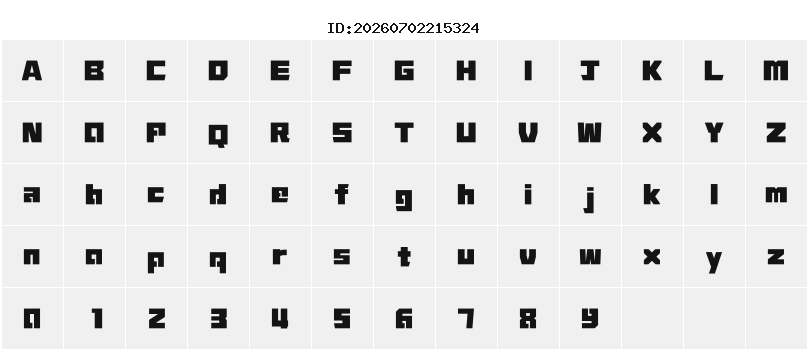
089-上首金刚体 Preview
• Font Name: 089-上首金刚体
• Font ID: 089-SSJinGangTi:Version 6.00
• Full Font Name: 089-上首金刚体
• Version: Version 6.00 January 11, 2022
• PostScript Name: 089-SSJinGangTi
• Character Count: 7569
• Manufacturer: 上首造字
About 089-上首金刚体.ttf
089-上首金刚体.ttf is a modern, elegant sans-serif font designed for ultimate readability and visual harmony. Perfect for branding, headlines, web design, and print materials.